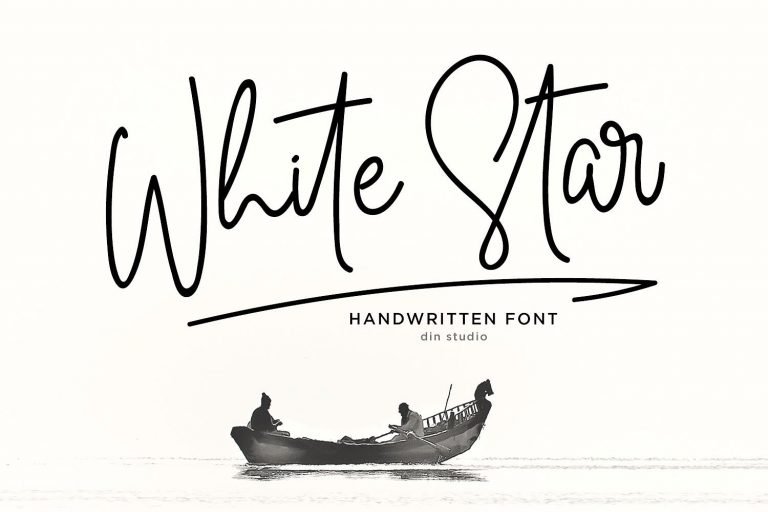
White Star Handwritten Font
Hi designer! I am happy to introduce you to a handwritten font. Introducing White StarFont! White Star designed by Din Studio. White Star- Chic Handwritten font made with naturally handwritten.it’s bring beatiful and chic typeface. This Font will look gorgeous on all your designs, wedding invites, branding materials, logo’s, t-shirt, poster, business cards, quotes and all project design other.